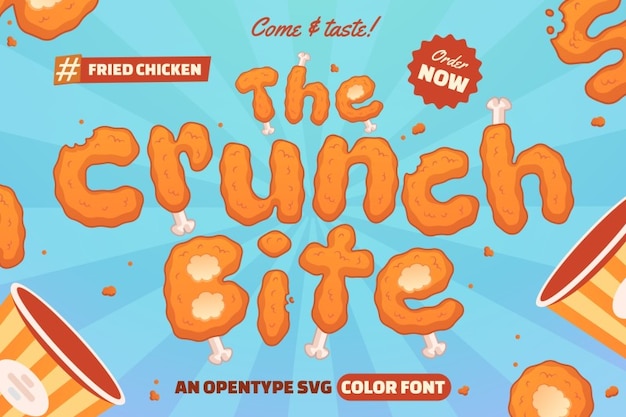
Crunch Bite is a tasty, rounded font that looks good enough to eat—think fried chicken with a playful twist. With bite marks and soft curves, it brings a fun, food-friendly vibe to menus, packaging, and snacky branding. Crunch Bite serves up bold flavor and friendly charm in every delicious letter